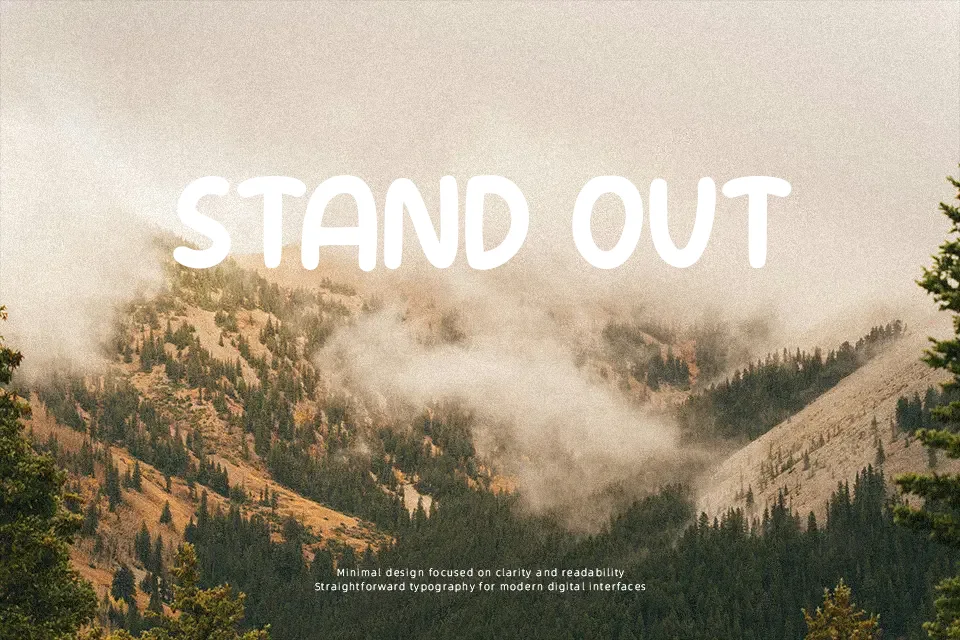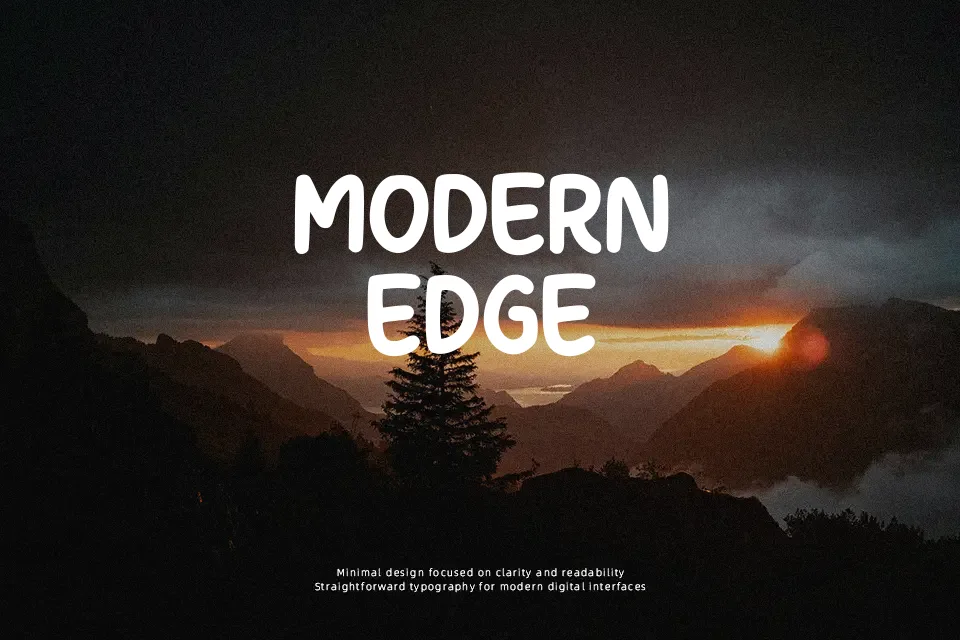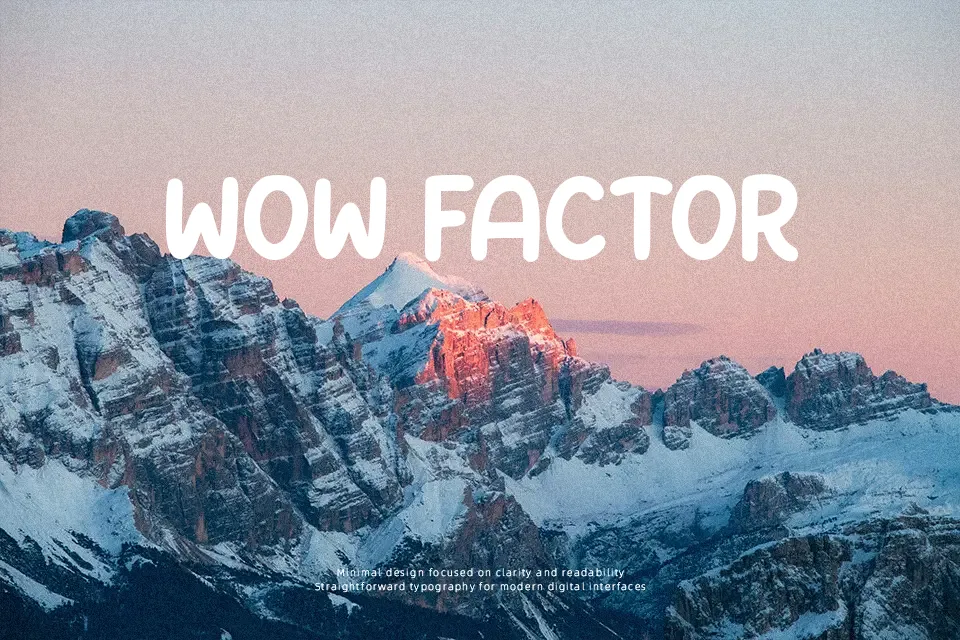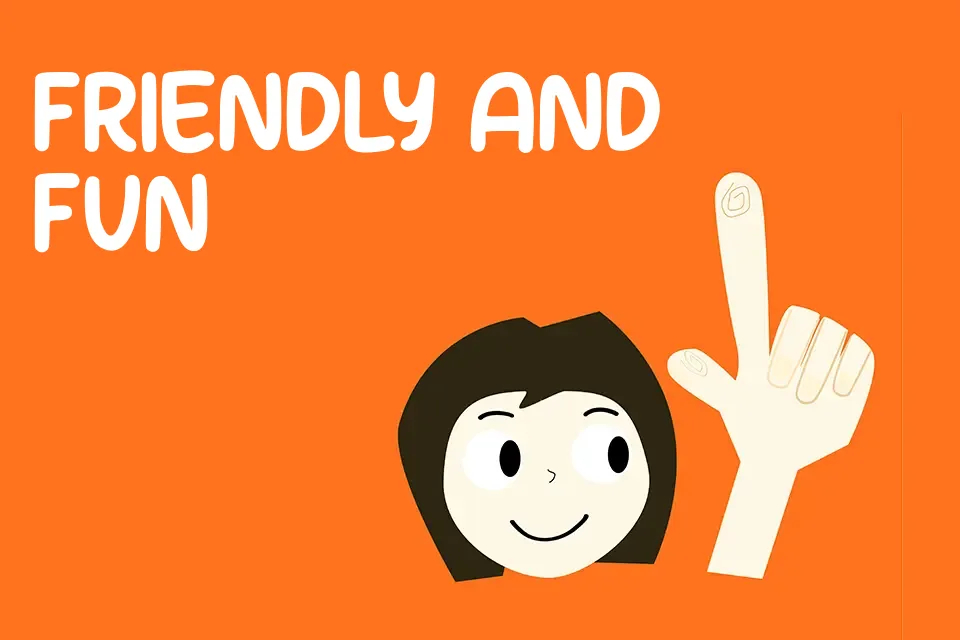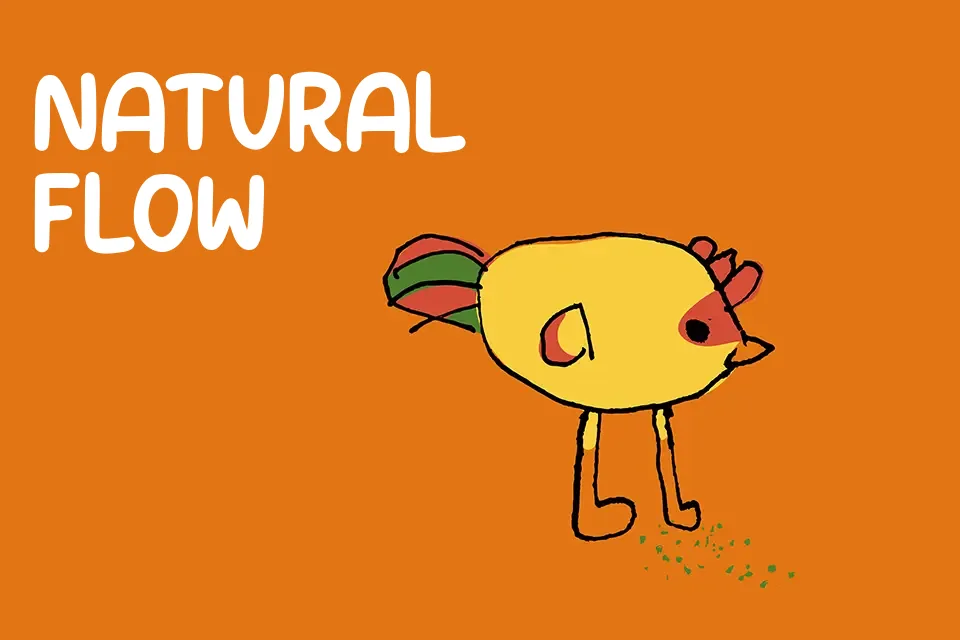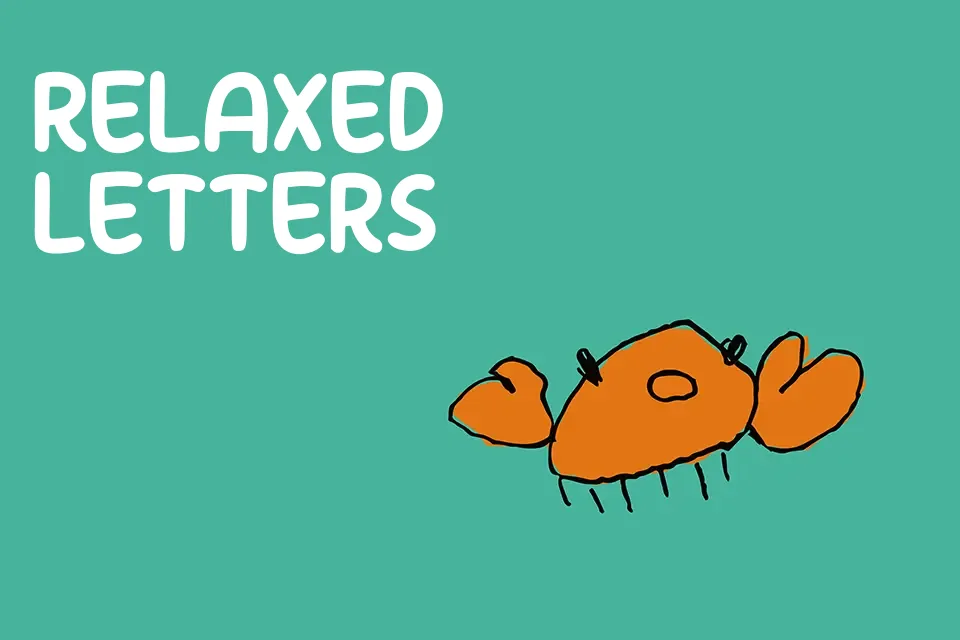
Broom Font
Designed by Kong Font
Broom is a handwritten comic-style display font with soft, slightly uneven strokes and relaxed letter shapes that feel friendly and informal. The weight sits in a comfortable mid-range, so letters read clearly at poster and header sizes without feeling heavy, while the spacing leaves enough air between characters to avoid visual clutter. It works well for seasonal themes, playful branding, and kids-oriented artwork where you want a fun, approachable voice instead of strict geometry. For long paragraphs, formal editorial work, or serious corporate identities, the quirky curves can become distracting and feel too casual. If you like informal comic or cartoon fonts but want something a bit more characterful, Broom lands in that middle ground.
Halloween posters and spooky event flyers
Kids book covers or playful classroom printables
Casual social media graphics and story titles
Body text or long reading passages
Formal corporate branding or legal documents
Minimal, ultra-clean UI or app interfaces
Perfect for branding, halloween, and kids, with a artistic and comic style.